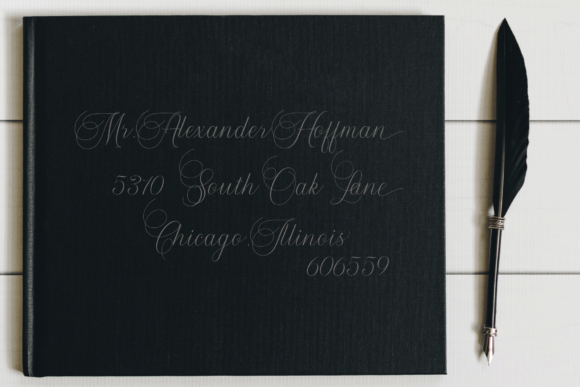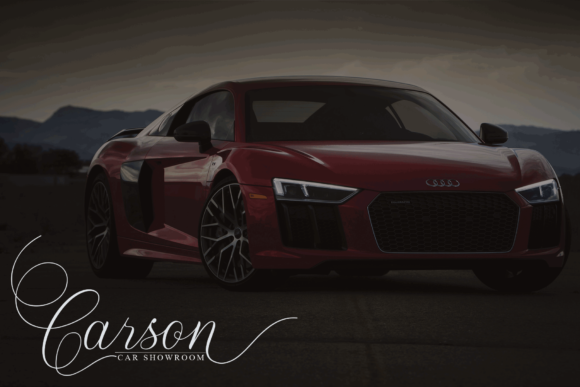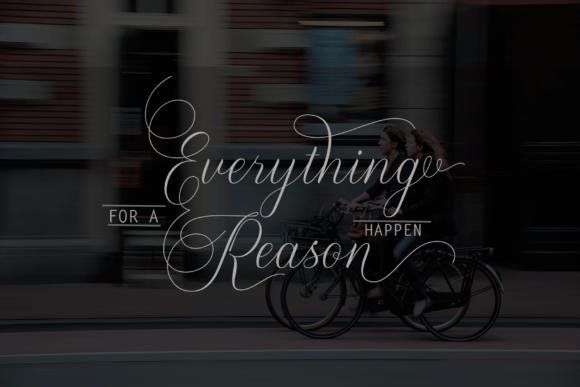
Introduction to Metropolis Font
Metropolis is a bold and striking handwritten font that updates classic calligraphy with a sophisticated feel.
Key Features of Metropolis Font